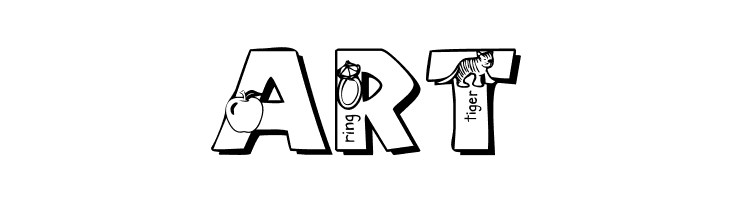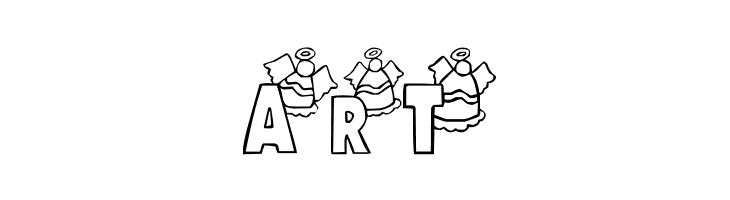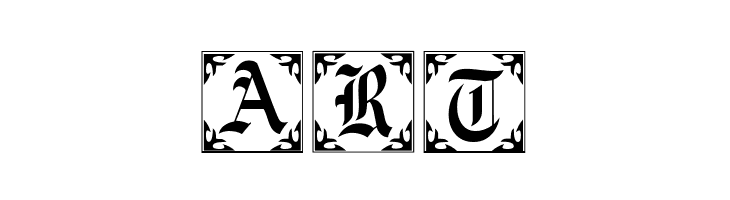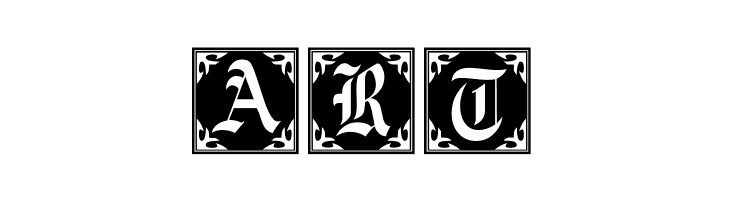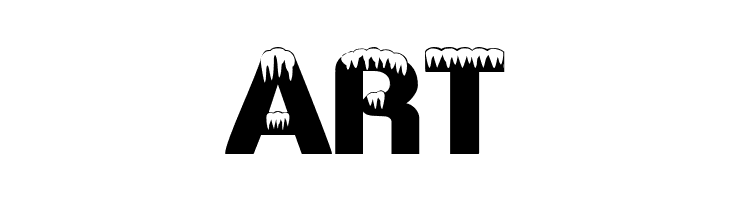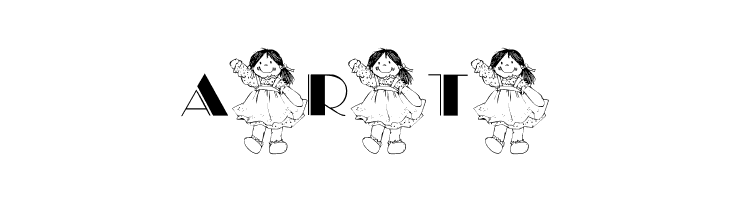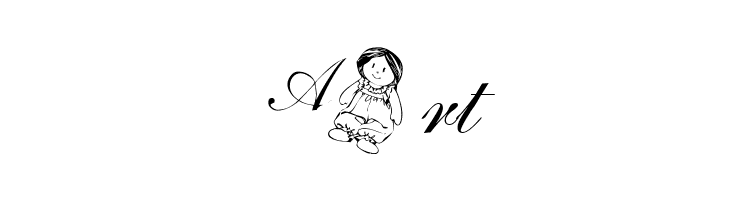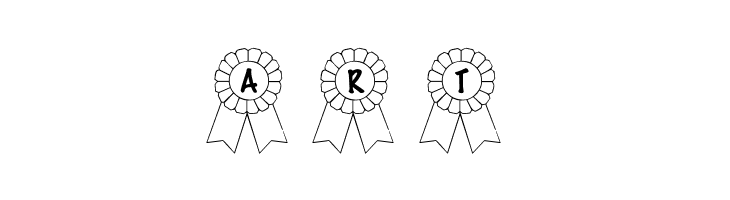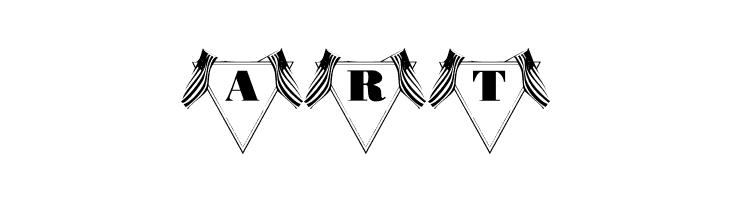
• 101! All American
• 101! Alpha Pikture 'Bet
A playful, illustrative font with embedded images for each character, ideal for educational use.
• 101! Ancient Greece
Display font using ancient Greek pottery and motifs as characters.
• 101! Angelic Alpha
A decorative font with bold letters and angelic figures, ideal for festive designs.
• 101! Antique Alpha
A decorative blackletter font with ornate, boxed characters and high contrast.
• 101! Antique Alpha II
An ornate, blackletter-style font with decorative floral frames.
• 101! Arctic Blast
A bold, decorative font with an icy, winter-themed design.
• 101! Ashleigh's Dolly
A playful font with doll illustrations integrated into each character.
• 101! Ashleigh's Other Dolly
A whimsical script font with decorative doll illustrations on uppercase letters and numerals.
• 101! Awards Won